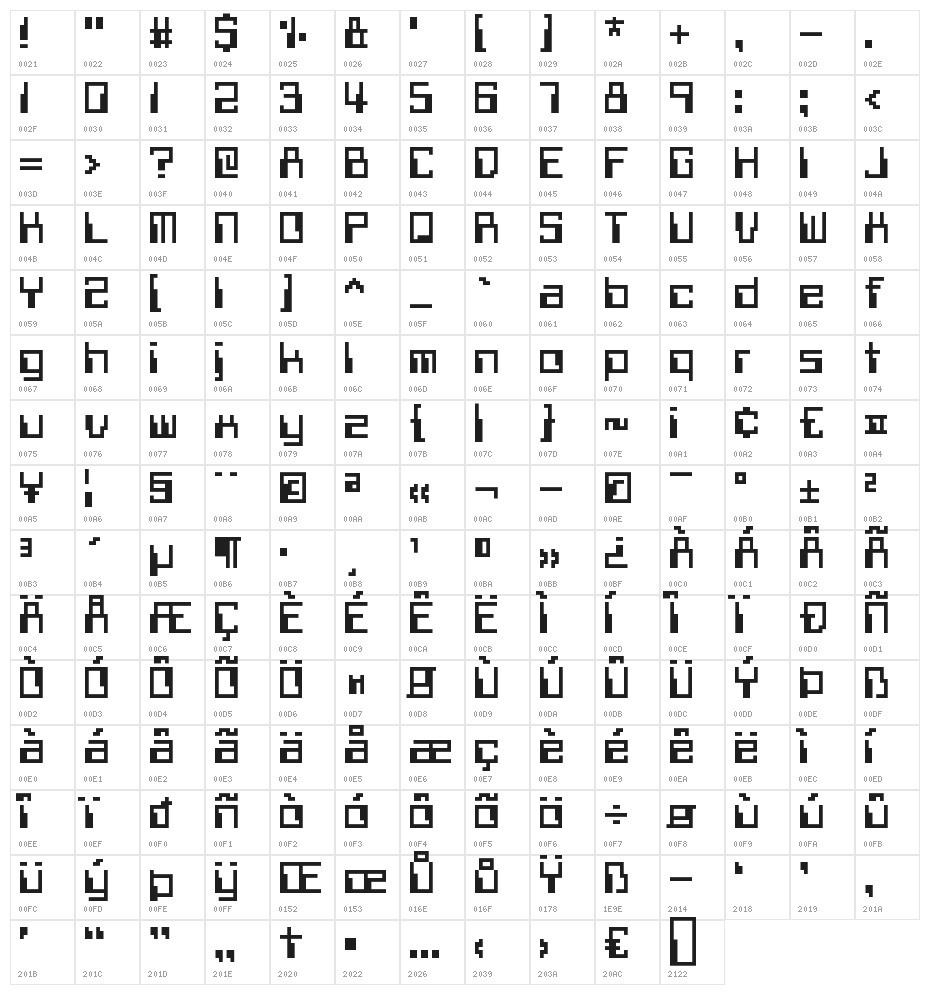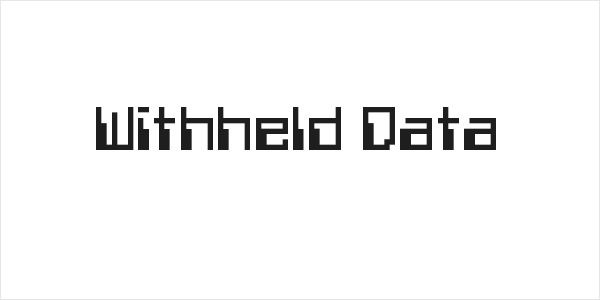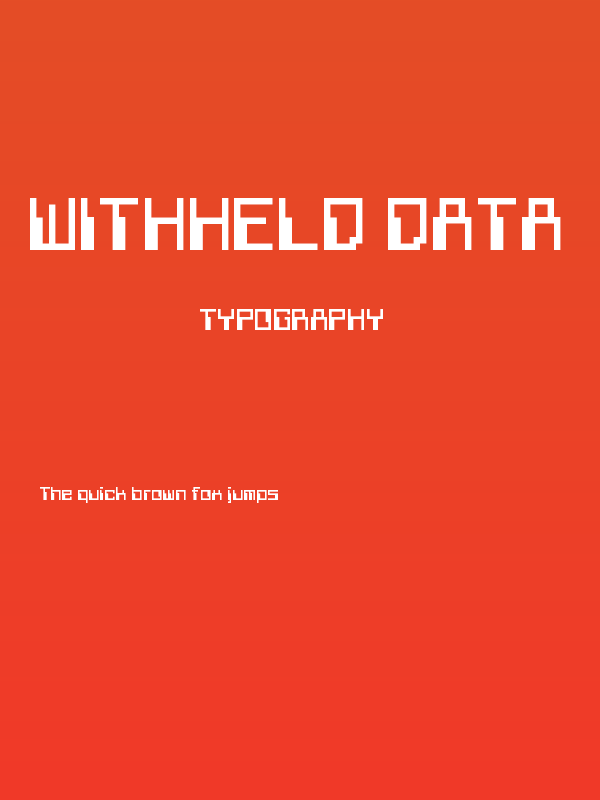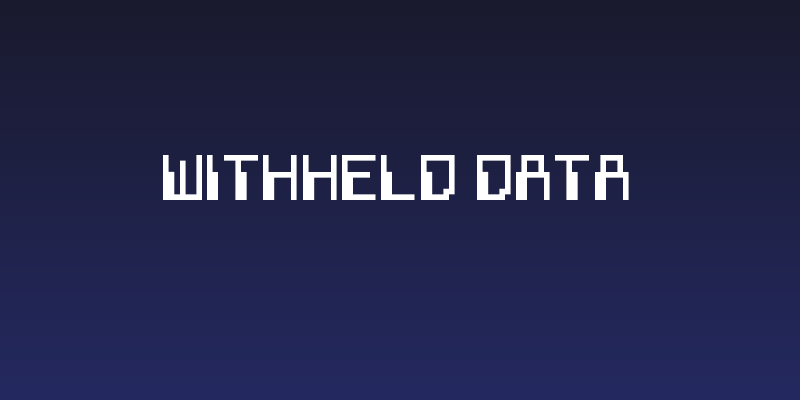
Withheld Data Font
Withheld Data Description
This font features a bold, geometric design with a distinctly modern and digital aesthetic. The characters are constructed with sharp, angular lines and consistent stroke widths, creating a uniform and structured appearance. The uppercase and lowercase letters maintain a similar height, enhancing the font's blocky and compact style. The numerals and special characters follow the same design principles, ensuring cohesion across all elements. This font's pixelated look evokes a retro, arcade-like feel, making it ideal for projects that aim to capture a sense of nostalgia or digital innovation.
| Proposed Projects | Ideal for video game graphics, tech-themed posters, digital art projects, and retro-style branding. |